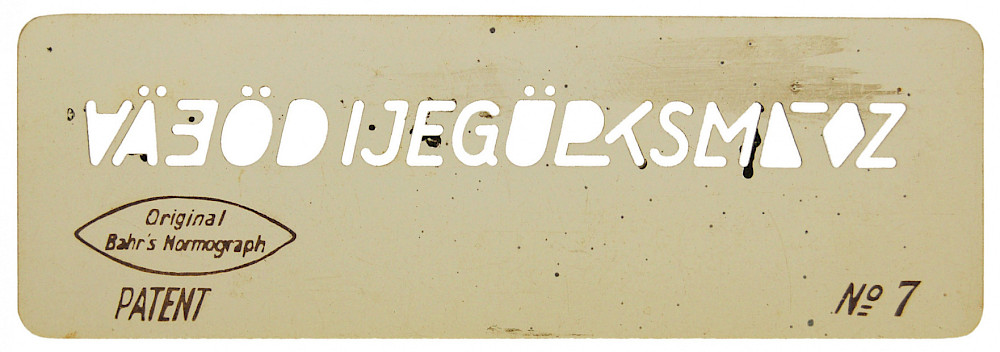
When uniformity in design is key the most basic means of ensuring homogenous letterforms is a lettering guide template, or stencil. The Normograph was invented by vocational school teacher Georg Bahr and was patented in Germany in 1909. It did not contain a full character set, but only a few elementary shapes — stems, arms, curve segments, diagonals — that needed to be combined into letters and numerals. Contemporary guides by most other manufacturers were equally limited.